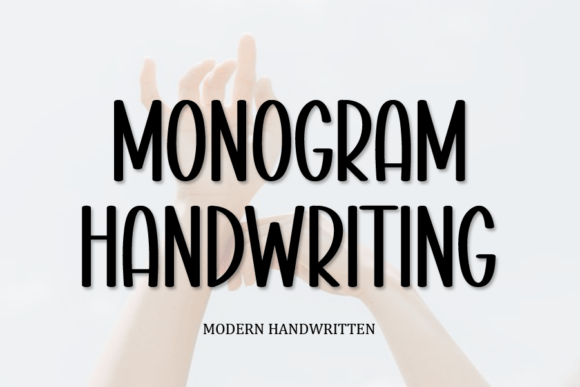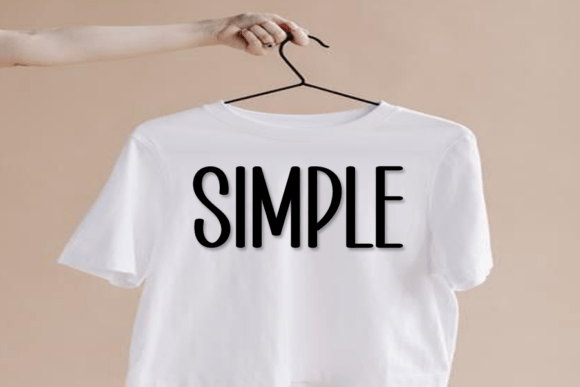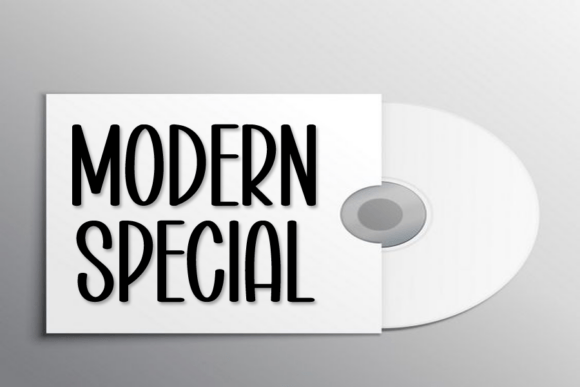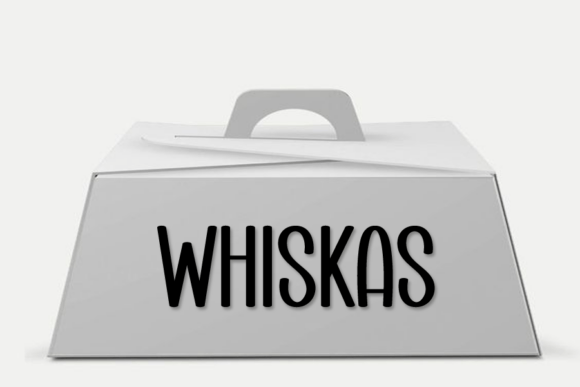
Monogram Handwriting Font
About the Monogram Handwriting Font
Unleash your creativity with Monogram Handwriting Font, a versatile font perfect for a wide range of applications. Monogram Handwriting is a fun and quirky font. No matter the topic, this font will be an incredible asset to your fonts’ library, as it has the potential to elevate any creation.
It is suitable for logotype, headline font, in corporate identity, brand identity, apparel industry, poster, music, movie, game, magazine, book, comic, cartoon, YouTube, Instagram, website, or any of your creative design projects
Monogram Handwriting’s playful, quirky nature makes it ideal for headlines, short text blocks in branding materials, and playful packaging designs. It excels in projects requiring a handcrafted, approachable feel, such as children’s books, invitations, or social media graphics. However, its less-than-optimal legibility renders it unsuitable for body text or UI elements demanding high readability.
For effective pairings, consider balancing its informality. A clean sans-serif like Lato or Open Sans provides a strong contrast and enhances readability when used alongside Monogram Handwriting in headlines and subheadings. Alternatively, a classic serif like Garamond or a more modern geometric sans-serif like Montserrat could add sophistication and counterbalance the font’s whimsicality.
The overall personality is best described as friendly and informal, conveying approachability and a sense of lighthearted charm. Avoid using it in contexts demanding seriousness or professionalism.
Monogram Handwriting Font Usage Examples
Monogram Handwriting Font Example